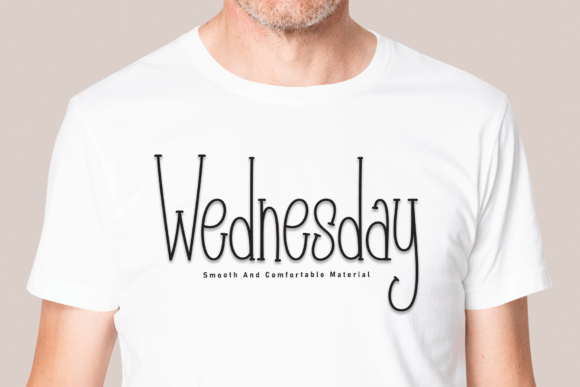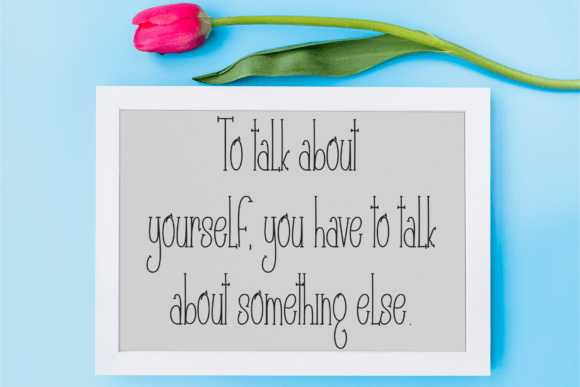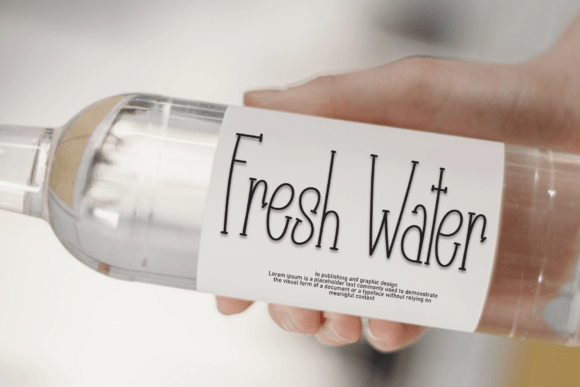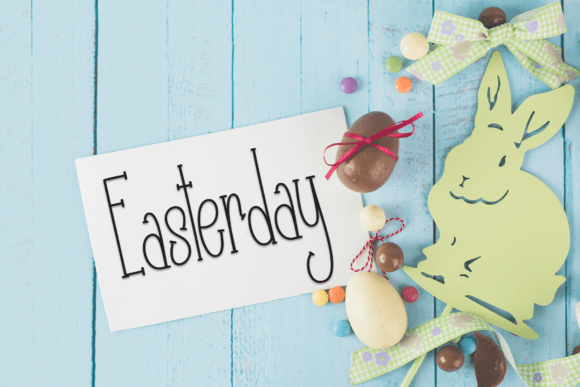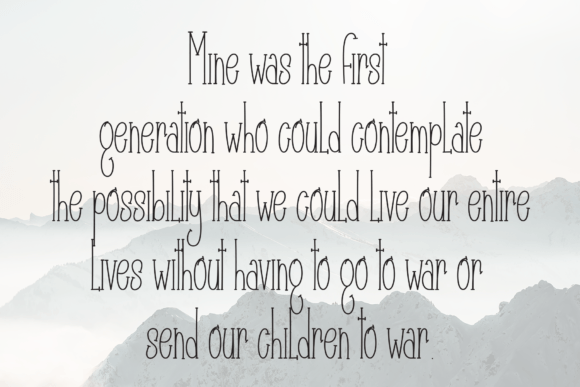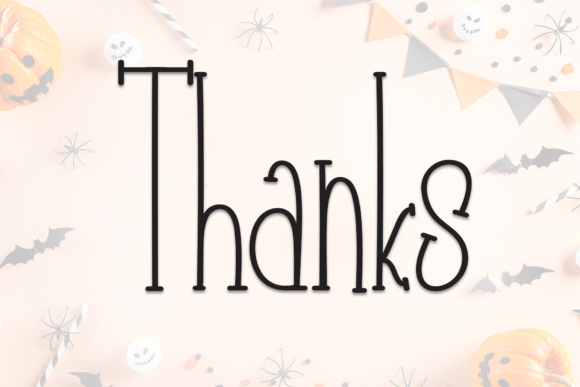
Happy Halloween Font: A Delightful Handwritten Font to Elevate Your Designs
Are you looking for a font that can add a touch of personality to your designs? Do you want to create captivating and sweet-looking wedding invitations, cards, or other design projects? Look no further than the Happy Halloween Font, a delightful and affable handwritten font that beams with charm and fun.
A Perfect Fusion of Sweetness and Fun
The Happy Halloween Font is a unique and endearing font that combines sweetness and fun in a perfect way. Its distinctive and bubbly flair makes it ideal for designers and crafters who want to add a personal touch to their projects. Whether you’re creating wedding invitations, greeting cards, or other designs, this font is sure to elevate your creative journey.
Infused with Endearing Charm
What sets the Happy Halloween Font apart is its infused endearing charm. This font has a magical quality that makes it perfect for creating heartfelt messages or captivating designs. With its aesthetic appeal wrapped in a ribbon of fun, you can create designs that are both visually appealing and engaging.
Craft Heartfelt Messages or Captivating Designs
The Happy Halloween Font is a versatile font that can be used to craft heartfelt messages or create captivating designs. Its charming and cute appearance makes it perfect for:
- Wedding invitations and announcements
- Branding and packaging designs
Elevate Your Creative Journey
The Happy Halloween Font is more than just a font – it’s a creative tool that can elevate your designs and help you stand out. With its unique and charming appearance, you can:
- Add a personal touch to your designs
- Create visually appealing and engaging designs
- Stand out from the crowd with a distinctive font
- Save time and effort with a high-quality font
Key Features of the Happy Halloween Font
The Happy Halloween Font has several key features that make it a great choice for designers and crafters:
- Delightful and affable handwritten appearance
- Perfect fusion of sweetness and fun
- Endearing charm and magical quality
- High-quality and unique design
Tips for Using the Happy Halloween Font
Here are some tips for using the Happy Halloween Font in your designs:
- Use it for headings and titles to add a touch of personality
- Pair it with other fonts to create a unique and visually appealing design
- Use it consistently across your designs to create a cohesive brand identity
The Happy Halloween Font is a delightful and charming font that can elevate your designs and add a touch of personality. With its perfect fusion of sweetness and fun, endearing charm, and versatility, it’s a great choice for designers and crafters who want to create captivating and sweet-looking designs. Whether you’re creating wedding invitations, greeting cards, or other designs, this font is sure to make your creative journey more enjoyable and rewarding.